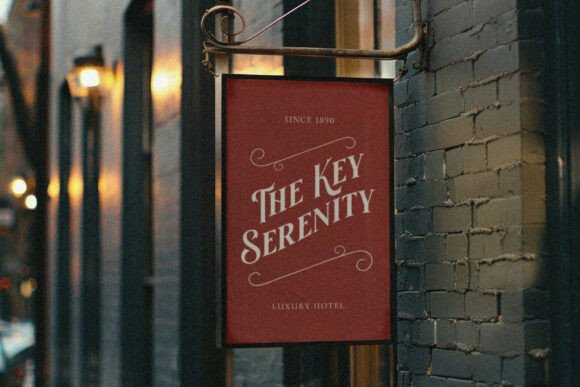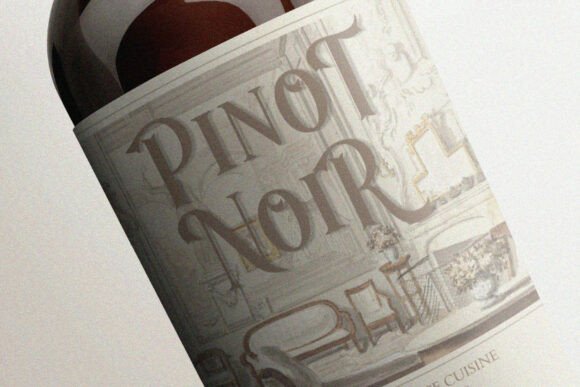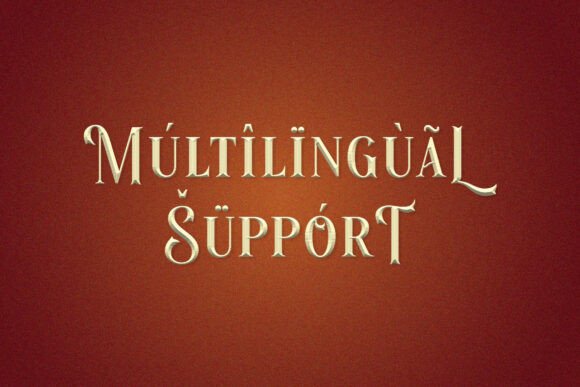
Introduction to Meratus Font Font
Fonts play a crucial role in design, and the Meratus Font font is a typeface that brings both character and versatility to any project. Whether you’re working on a branding project, a website, or a print design, the Meratus Font font offers a unique style that can elevate your work.
Meratus is a vintage display serif font.
This type of font is very suitable for your various needs such as branding projects, logos, social media posts, advertisements, labels, product packaging, photography, wedding designs, watermarks, invitation product designs, stationery, and any project .
Key Features of Meratus Font Font
Why Choose Meratus Font Font?
The Meratus Font font is more than just a typeface – it’s a design tool that helps you communicate your message with style and clarity. Its unique character set and versatile design make it suitable for a wide range of applications, from elegant invitations to bold headlines.
With its carefully crafted letterforms and balanced proportions, the Meratus Font font ensures readability and visual appeal across all mediums.
What makes Meratus Font font special?
The Meratus Font font stands out with its unique design, exceptional readability, and versatility across various design applications.